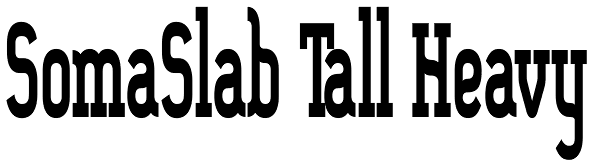
SomaSlab Tall
SomaSlab Tall has all the same characteristics as SomaSlab, transferred into a style which has been condensed along the horizontal axis only. Available in 2 weights, XBold & Heavy, with an extended Latin character set and several glyph alternates...
SomaSlab Tall Heavy
SomaSlab Tall ExtraBold